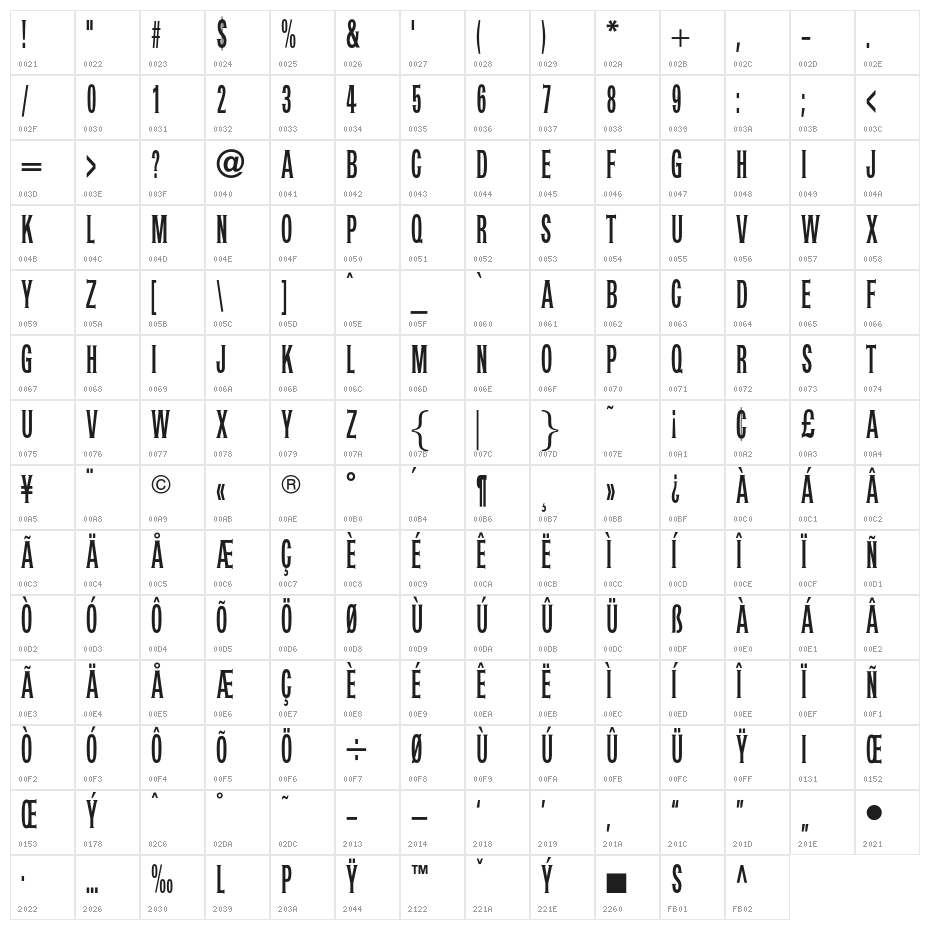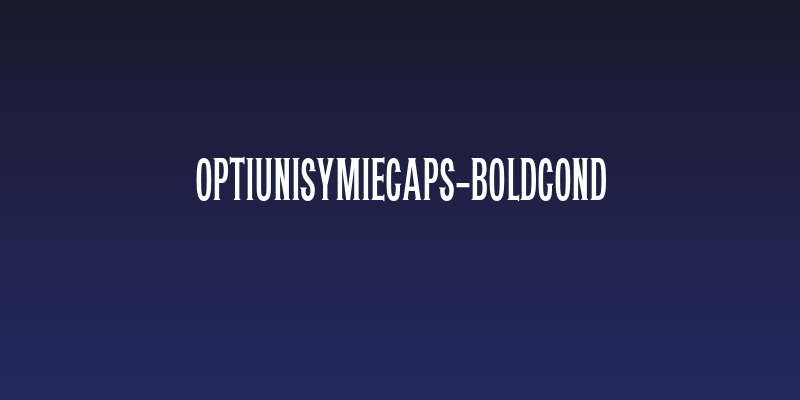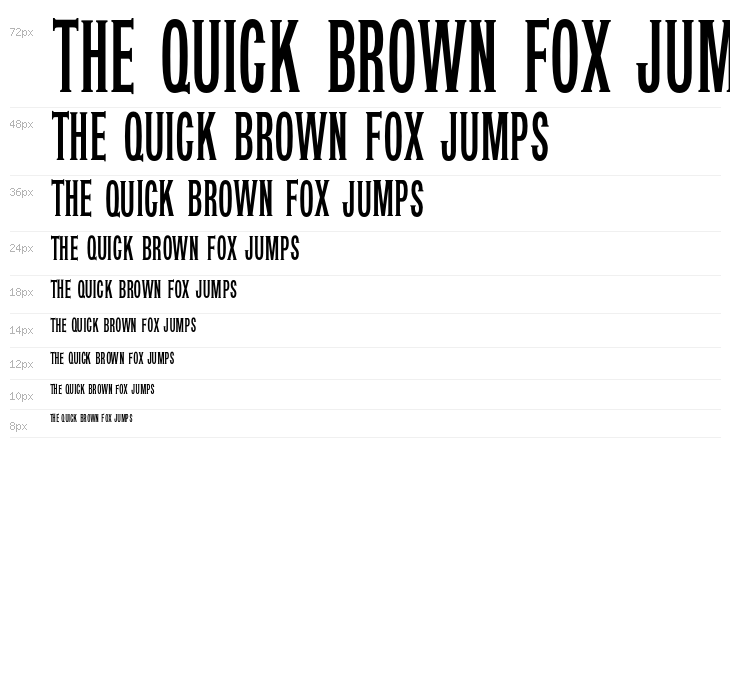
OPTIUnisymieCaps-BoldCond Font
OPTIUnisymieCaps-BoldCond Description
This font features bold, condensed letterforms with a strong vertical emphasis, creating a striking and impactful appearance. The characters are uniformly tall and narrow, with minimal spacing between them, enhancing the condensed look. The strokes are consistent in thickness, providing a medium contrast that maintains readability while emphasizing the boldness. The uppercase letters dominate the design, offering a sense of authority and presence. The numerals and special characters follow the same condensed style, ensuring a cohesive look across all elements.
Proposed ProjectsIdeal for headlines, posters, and branding projects where a strong, impactful presence is required.